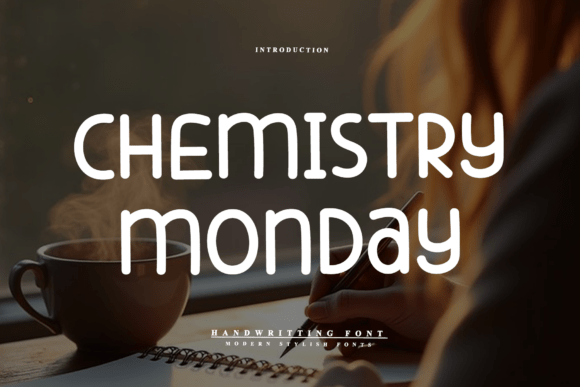
Unlock the Secret to Timeless Design with Chemistry Monday Font
Have you ever stared at a blank canvas, waiting for the perfect font to spark your creativity? That’s exactly what happened to me when I was working on a branding project for a new client. After trying out countless fonts, I stumbled upon Chemistry Monday Font, and it was love at first sight. This lovely and timeless sans-serif font is a game-changer for designers looking to create eye-catching logos, branding, and quotes that leave a lasting impression.
What sets Chemistry Monday Font apart is its unique and beautiful touch that brings designs to life. Whether you’re a seasoned designer or just starting out, this font is a valuable addition to your toolkit. With its versatility and timeless charm, Chemistry Monday Font is the perfect choice for creating designs that stand the test of time.
Chemistry Monday Font Key Features
- Font Family: Chemistry Monday is a unique display font designed to evoke a sense of chemistry and science.
- Unique Characteristics: Chemistry Monday features a distinctive, hand-drawn style with intricate details and a mix of modern and vintage elements, making it perfect for scientific and educational designs.
Design Review: Chemistry Monday Font
Overall, I think the Chemistry Monday Font is a fun and quirky choice for designers looking to add some personality to their projects. The font has a playful, handwritten feel that’s reminiscent of science notebooks and chemistry journals.
- Unique and quirky design: The Chemistry Monday Font is unlike many other fonts out there, making it a great choice for designers who want to stand out.
- Perfect for creative projects: This font is ideal for designers working on creative projects, such as branding, packaging, or advertisements.
- Not ideal for formal projects: Due to its playful and handwritten design, the Chemistry Monday Font may not be suitable for formal projects, such as academic papers or business reports.
- Limited font styles: The font only comes in a few styles, which may limit its versatility and functionality.
Overall, I think the Chemistry Monday Font is a great choice for designers who want to add some personality to their projects. While it may have some limitations, its unique design and high-resolution quality make it a valuable addition to any designer’s toolkit.
The Chemistry Monday Font is perfect for:
- Science and technology-related projects.
- Education and academic materials.
- Branding and marketing materials for science-based businesses.